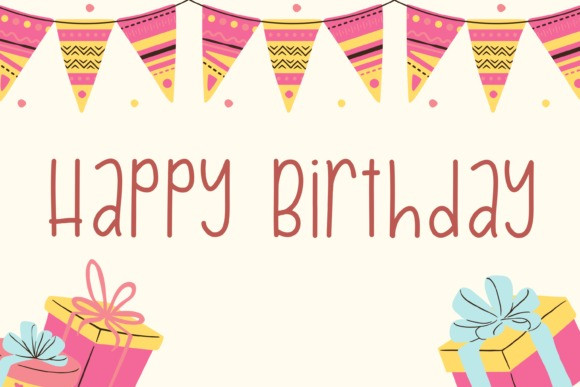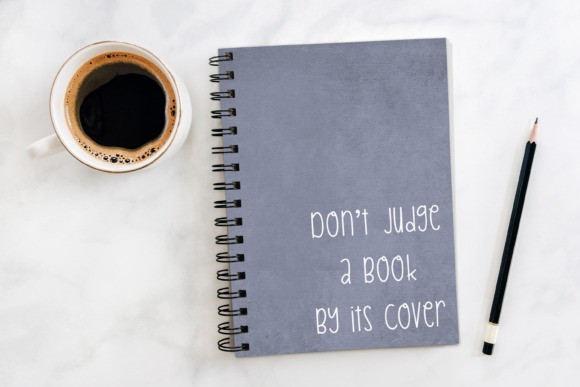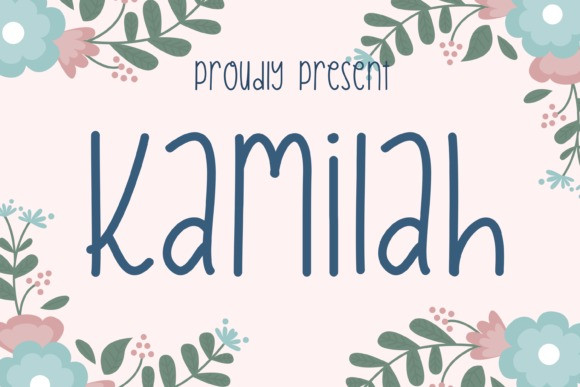
Kamilah Display Font
Kamilah is a simple and dainty handwritten font. Its natural and unique style makes it incredibly fitting to a large pool of designs. Use this font for your designs and explore its endless possibilities.